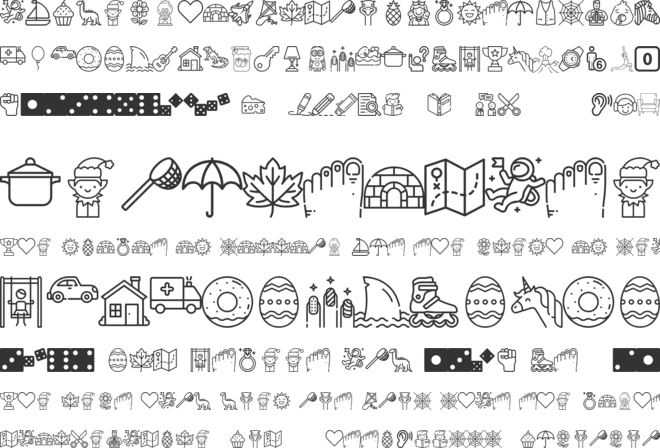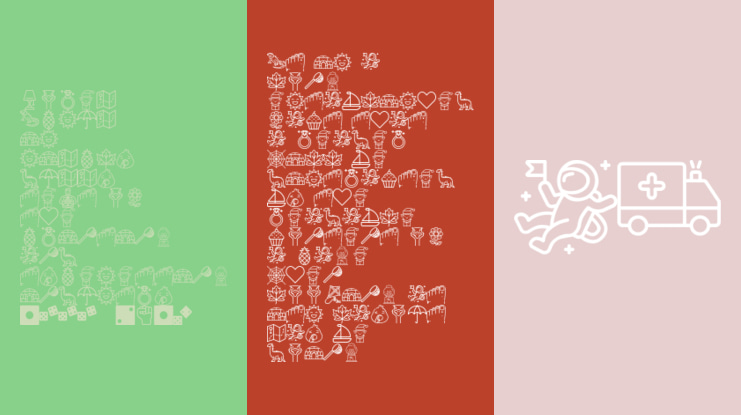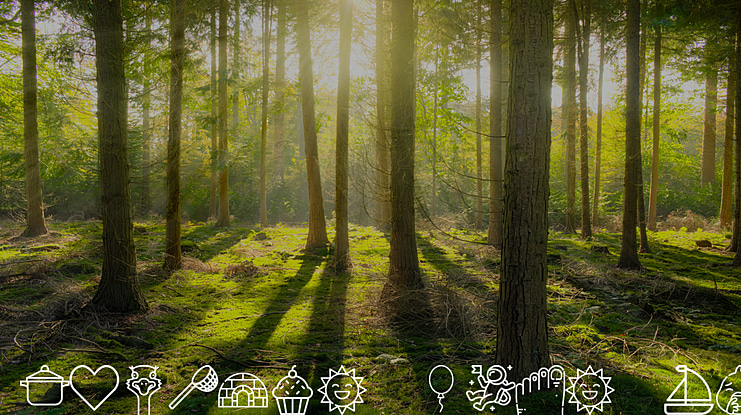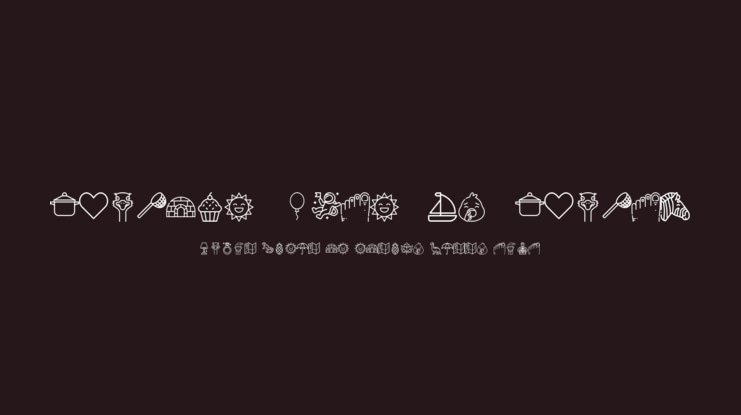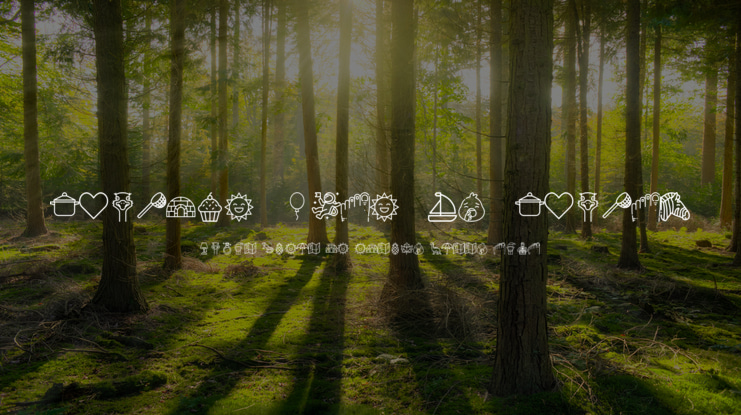
Phonics-Bats-by-Phontz Font
This phonics dingbats font is made for learning letter sounds. Phonics font includes: - two pictures beginning with each letter sound (uppercase and lowercase.) - PLUS 2 pictures for each of three blends: ch, sh, th - dice with counting dots for numbers 0-9 - visuals for common classroom directions (i.e. "write," "cut," "glue," "read) for symbols @#$%^&*<>/\|
This is a great resource for primary teachers to make their own phonics and letter sound practice materials for pre-K, kindergarten, and first grade students.